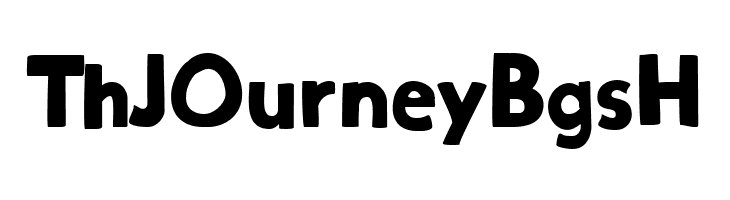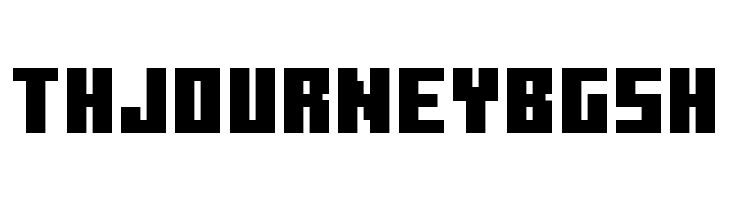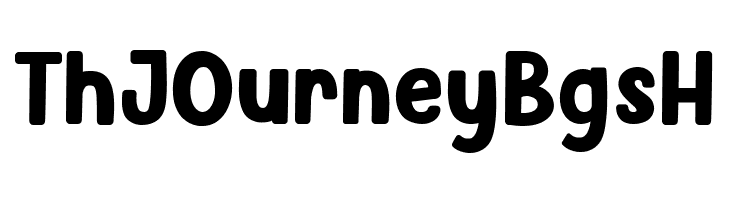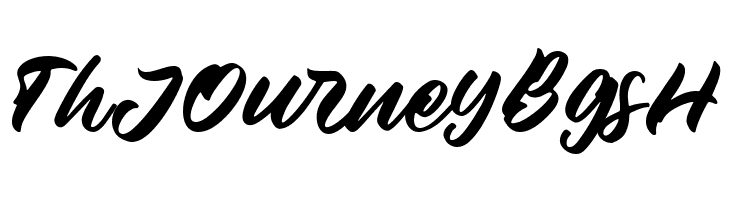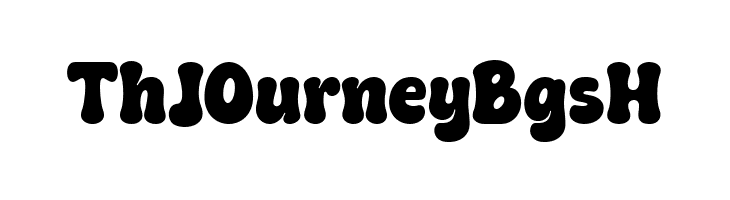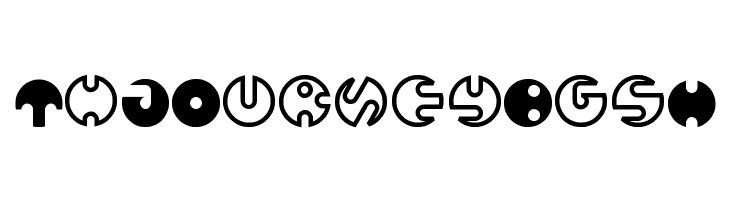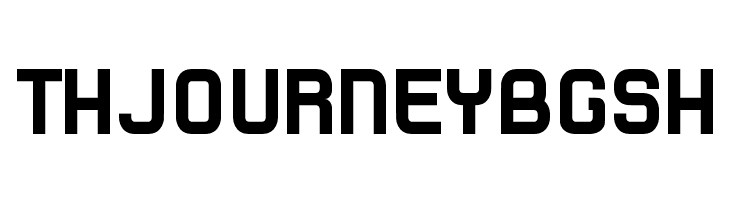
A dynamic and flowing script font with an elegant, handwritten style.
A playful, rounded font with bold, uniform strokes and a friendly vibe.
A bold, cursive script font with high contrast and fluid strokes.
A bold, geometric font with a futuristic and sci-fi aesthetic.
A bold, geometric font with futuristic and abstract design elements.
A pixelated, blocky font with a retro digital style.
A bold, geometric sans-serif font with a modern, uniform design.
A playful, bold font with rounded edges and a friendly appearance.
A bold, rounded typeface with a playful and whimsical style.